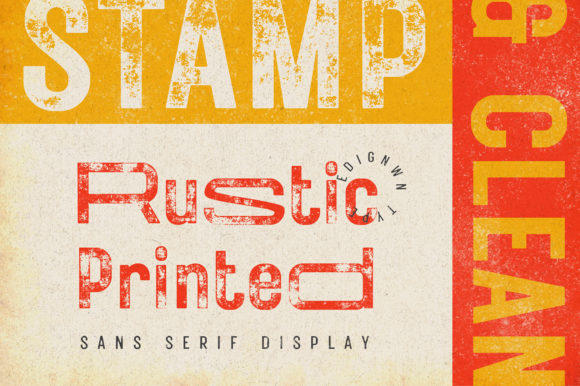
Introducing Rustic Printed Font, a captivating and one-of-a-kind sans serif font designed by Edignwn Type. Get ready to embark on a creative journey and elevate your designs to new heights with this stunning typeface.
With its incredibly stylish look, Rustic Printed Font is the perfect choice for those who crave uniqueness and want to make a bold statement. This font will captivate your audience and leave a lasting impression on anyone who lays eyes on your designs.
Whether you're designing a logo, crafting inspiring quotes, creating invitations, or designing business cards, Rustic Printed Font will bring your vision to life. Its versatility knows no bounds, making it suitable for a wide range of design projects.
Immerse yourself in the world of endless possibilities as you explore the vast potential of Rustic Printed Font. Its timeless appeal adds a touch of elegance to any project, making it a must-have for designers looking to create impactful visuals.
Unleash your creativity and let Rustic Printed Font be your ultimate tool. Its eye-catching allure will instantly draw attention and engage your audience. Stand out from the crowd and make your designs shine with this captivating font.
Experience the joy of seamless integration as Rustic Printed Font effortlessly blends with other design elements. Whether you're combining it with illustrations or photographs, this font adapts effortlessly, resulting in a harmonious and visually stunning composition.
But it doesn't stop there! Rustic Printed Font is also perfect for presentations. Wow your colleagues and clients with powerful visuals that leave a lasting impression. With this font, your message will be delivered with impact and professionalism.